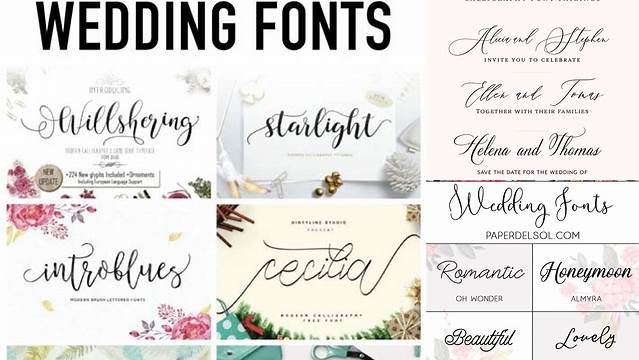
Elegant Cursive Fonts For Stunning Wedding Signs
Choosing the right font for your wedding signs is super important, guys! It sets the tone for your big day and adds that extra touch of elegance and personalization. Cursive fonts are a popular choice, and for good reason! They bring a touch of romance and sophistication that's just perfect for weddings. Let's dive into some fantastic cursive fonts for wedding signs that will make your special day even more memorable.
1. Why Choose Cursive Fonts for Wedding Signs?
Why are cursive fonts such a hit for wedding signs, you ask? Well, they effortlessly blend tradition with contemporary style. Think about it: those graceful loops and flowing lines evoke feelings of romance, elegance, and timelessness. Using cursive fonts can instantly elevate your wedding decor, making everything feel more polished and sophisticated. Whether you're creating a welcome sign, seating chart, or directional signage, the right cursive font can make a huge difference in the overall aesthetic.
The Psychological Impact of Cursive
The way a font looks can actually affect how people feel! Cursive fonts, with their delicate curves and flourishes, tend to trigger emotions of warmth, nostalgia, and sophistication. When guests see your wedding signs written in a beautiful cursive font, they'll subconsciously associate those positive feelings with your celebration. This can create a more inviting and memorable atmosphere from the moment they arrive. So, it's not just about aesthetics; it's about creating an emotional connection!
Versatility of Cursive in Wedding Themes
One of the best things about cursive fonts is how versatile they are. Whether you're planning a rustic barn wedding, a glamorous ballroom affair, or a bohemian beach celebration, there's a cursive font that will fit your theme perfectly. A more traditional, formal cursive can complement a classic wedding, while a playful, modern cursive can add a touch of whimsy to a more relaxed event. The key is to choose a font that reflects your personal style and enhances the overall vibe of your wedding.
Enhancing Readability with Thoughtful Design
While cursive fonts are beautiful, it's essential to ensure they're still easy to read. After all, you want your guests to be able to quickly understand the information on your signs. Choose fonts with clear, distinct letterforms, and avoid anything too elaborate or ornate. Also, consider the size and spacing of the text to maximize readability, especially for larger signs or those viewed from a distance. A well-chosen cursive font should be both visually appealing and functional, making your wedding signs both beautiful and practical.
2. Popular Cursive Fonts for Wedding Decor
Alright, let's get into the nitty-gritty and explore some super popular cursive fonts that are perfect for wedding decor. These fonts are tried and tested, so you can be confident they'll look amazing on your wedding signs!
Calligraphy-Inspired Fonts
Calligraphy-inspired fonts bring a touch of traditional elegance to your wedding decor. These fonts often mimic the look of hand-lettered calligraphy, with beautiful variations in stroke thickness and graceful curves. They're perfect for creating a classic and sophisticated look, especially for formal weddings. Some popular choices include "Beloved," "Adelia," and "Samantha Script." These fonts add a personal and artistic touch to your signs, making them feel extra special.
Modern and Chic Cursive Styles
If you're going for a more contemporary vibe, modern and chic cursive styles are the way to go. These fonts often feature clean lines, simplified letterforms, and a minimalist aesthetic. They're perfect for adding a touch of sophistication without being too fussy. Some great options include "SignPainter," "Breezy," and "Hello Script." These fonts work well for a variety of wedding themes, from urban chic to bohemian modern.
Romantic and Flowing Cursive Typefaces
For a truly romantic and dreamy feel, choose cursive typefaces that are flowing and whimsical. These fonts feature delicate curves, elegant swashes, and a light, airy quality. They're perfect for creating a soft and romantic atmosphere, especially for outdoor or garden weddings. Some popular choices include "Aphrodite Slim," "Honeywell Script," and "Lovers Quarrel." These fonts evoke feelings of love, joy, and celebration, making them ideal for wedding signage.
Vintage and Retro Cursive Options
If you're planning a vintage-themed wedding, vintage and retro cursive options can add the perfect touch of nostalgia. These fonts often feature unique letterforms, decorative flourishes, and a slightly imperfect, hand-drawn quality. They're perfect for creating a charming and authentic look, reminiscent of bygone eras. Some great options include "Park Lane," "Streetwear," and "Good Vibes." These fonts add character and personality to your signs, making them stand out in a memorable way.
3. Free Cursive Fonts for DIY Wedding Signs
On a budget? No problem! There are tons of amazing free cursive fonts out there that are perfect for DIY wedding signs. You don't have to break the bank to create beautiful and personalized signage for your big day.
Finding High-Quality Free Fonts
Finding high-quality free fonts can be a bit of a treasure hunt, but it's totally worth it! Websites like Google Fonts, Font Squirrel, and DaFont offer a wide selection of free fonts that are both beautiful and functional. Just be sure to check the licensing agreements before using any font for commercial purposes (like selling your wedding signs). Look for fonts that are well-designed, easy to read, and suitable for your specific wedding theme.
Popular Free Cursive Font Choices
Some popular free cursive font choices include "Great Vibes," "Dancing Script," and "Lobster." These fonts are widely used and loved for their elegance, readability, and versatility. "Great Vibes" is a classic calligraphy-inspired font, while "Dancing Script" is a more playful and modern option. "Lobster" is a bold and eye-catching font that's perfect for headlines and titles. Experiment with different fonts to see which ones best suit your style and needs.
Tips for Using Free Fonts Effectively
To make the most of free fonts, it's important to use them effectively. Pay attention to the spacing between letters and lines, and adjust the font size to ensure readability. Also, consider pairing your cursive font with a simpler sans-serif font for body text to create a balanced and harmonious design. Don't be afraid to experiment with different colors and textures to add visual interest to your signs. With a little creativity, you can create stunning wedding signs using free fonts that look like they cost a fortune!
Licensing Considerations for Free Fonts
Before using any free font, it's crucial to understand its licensing agreement. Some free fonts are free for personal use only, while others can be used for commercial purposes. Make sure you have the right to use the font for your specific project, whether it's creating signs for your own wedding or selling them to others. If you're unsure about the licensing terms, it's always best to err on the side of caution and choose a different font or purchase a commercial license.
4. Pairing Cursive Fonts with Other Typefaces
To create a visually appealing and balanced design, it's often a good idea to pair cursive fonts with other typefaces. This can add contrast, visual interest, and improve readability. Here's how to do it like a pro!
Complementary Font Combinations
When pairing fonts, look for combinations that complement each other. A classic pairing is a cursive font with a simple sans-serif font. The cursive font can be used for headings and titles, while the sans-serif font can be used for body text. This creates a clear hierarchy and ensures that the text is easy to read. Some great combinations include "Great Vibes" with "Open Sans," "Dancing Script" with "Roboto," and "Lobster" with "Montserrat."
Creating Visual Hierarchy
Visual hierarchy is all about guiding the viewer's eye through the design. Use font size, weight, and style to create a clear hierarchy of information. For example, use a larger, bolder cursive font for the main heading, a smaller cursive font for subheadings, and a simple sans-serif font for the body text. This will help your guests quickly understand the most important information on your signs.
Using Serif and Sans-Serif Fonts with Cursive
Serif and sans-serif fonts can both work well with cursive fonts, depending on the overall style you're going for. Serif fonts, with their small decorative strokes, tend to be more traditional and formal. Sans-serif fonts, with their clean and simple lines, tend to be more modern and minimalist. Experiment with different combinations to see which ones best suit your wedding theme and personal style.
Balancing Readability and Aesthetics
While aesthetics are important, readability should always be a top priority. Choose font combinations that are both visually appealing and easy to read. Avoid using cursive fonts for large blocks of text, as they can be difficult to decipher. Stick to using cursive fonts for headings, titles, and short phrases, and use a simpler font for the main body of text. This will ensure that your signs are both beautiful and functional.
5. Designing Wedding Signs with Cursive Fonts
Alright, let's talk about the actual designing of wedding signs using our fabulous cursive fonts. There are a few key elements to keep in mind to make sure your signs look absolutely stunning.
Choosing the Right Sign Size and Material
The size and material of your wedding signs can have a big impact on their overall look and feel. Consider the location of the sign, the amount of text it will contain, and the overall style of your wedding. Larger signs are great for creating a statement, while smaller signs are perfect for providing subtle guidance. As for materials, wood, acrylic, and chalkboard are all popular choices for wedding signs. Choose a material that complements your wedding theme and personal style.
Color Palettes and Font Colors
The color palette of your wedding signs should be cohesive and harmonious with the rest of your wedding decor. Choose font colors that contrast well with the background color to ensure readability. Light fonts on dark backgrounds and dark fonts on light backgrounds are always a safe bet. Consider using metallic colors like gold or silver for a touch of elegance, or opt for soft pastels for a romantic and dreamy feel.
Adding Embellishments and Decorations
Embellishments and decorations can add a personal and artistic touch to your wedding signs. Consider adding floral accents, ribbons, or other decorative elements that complement your wedding theme. Keep it simple and elegant, and avoid overcrowding the sign with too many embellishments. A few well-placed decorations can go a long way in enhancing the overall look and feel of your signs.
Ensuring Readability and Clarity
No matter how beautiful your wedding signs are, they won't be effective if they're not easy to read. Prioritize readability and clarity by choosing fonts that are clear and distinct, using appropriate font sizes and spacing, and ensuring that the text contrasts well with the background. Test your signs by viewing them from a distance to make sure they're easily legible. After all, the main purpose of your wedding signs is to provide information and guidance to your guests.
6. Where to Use Cursive Fonts on Your Wedding Day
So, where exactly can you use these beautiful cursive fonts on your wedding day? The possibilities are endless, guys!
Welcome Signs
A welcome sign is the first thing your guests will see when they arrive at your wedding, so it's a great opportunity to make a statement with a beautiful cursive font. Use a large, eye-catching font to welcome your guests and set the tone for the celebration. Consider adding a personal message or quote to make it even more special.
Seating Charts
Seating charts can be both functional and stylish. Use a cursive font to highlight the names of the bride and groom, as well as the table numbers or names. Pair it with a simpler font for the guest names to ensure readability. Consider adding decorative elements like floral accents or ribbons to tie it in with your wedding theme.
Table Numbers
Table numbers are an essential element of any wedding reception. Use a cursive font to make them stand out and add a touch of elegance to your tables. Consider using a larger font size for visibility, and choose a font color that complements your table linens and centerpieces.
Directional Signage
Directional signage is crucial for guiding your guests around the wedding venue. Use a clear and easy-to-read cursive font to indicate the location of the ceremony, reception, restrooms, and other important areas. Pair it with simple icons or arrows to make it even easier to understand. Ensure that the signage is well-lit and visible from a distance.
Menu and Bar Signs
Menu and bar signs are a great way to showcase your culinary offerings and add a touch of personality to your wedding reception. Use a cursive font to highlight the names of the dishes and drinks, and pair it with a simpler font for the descriptions. Consider adding decorative elements like illustrations or borders to make them even more visually appealing.
By incorporating cursive fonts into these various elements of your wedding day, you can create a cohesive and elegant look that will impress your guests and make your special day even more memorable. Have fun experimenting with different fonts and designs to create something truly unique and personal!Wedding signs using cursive fonts adds that elegant touch.